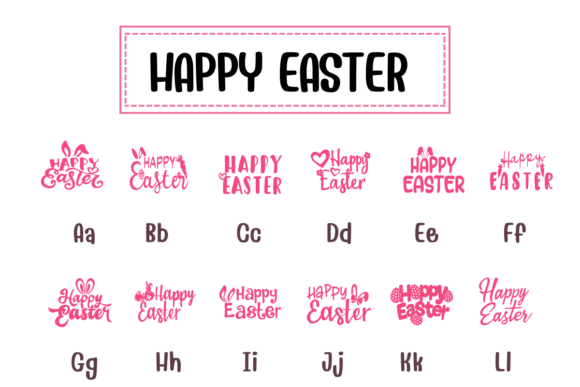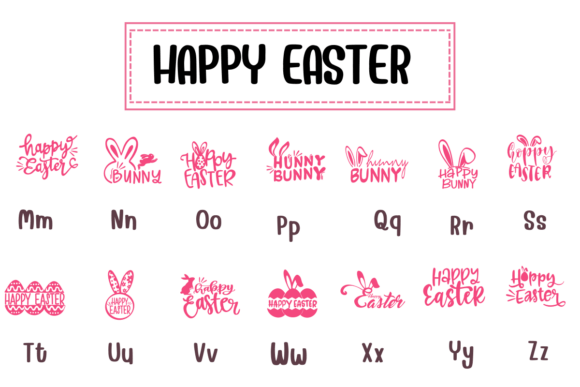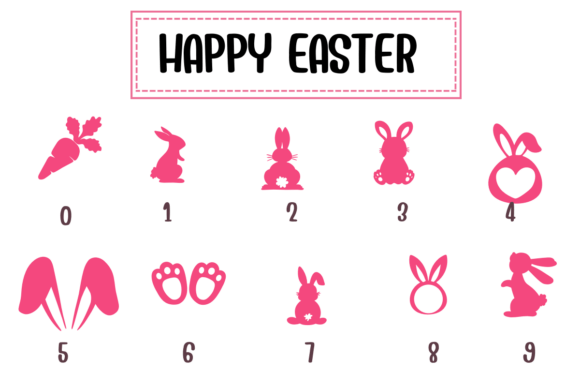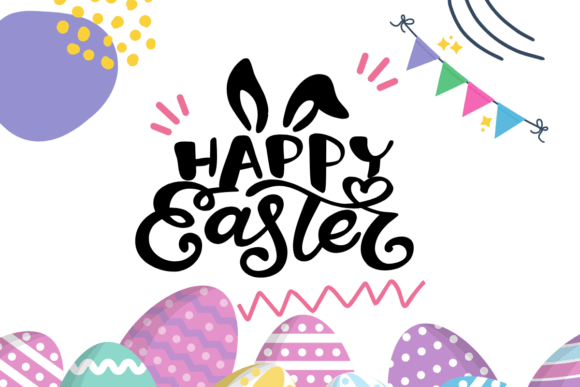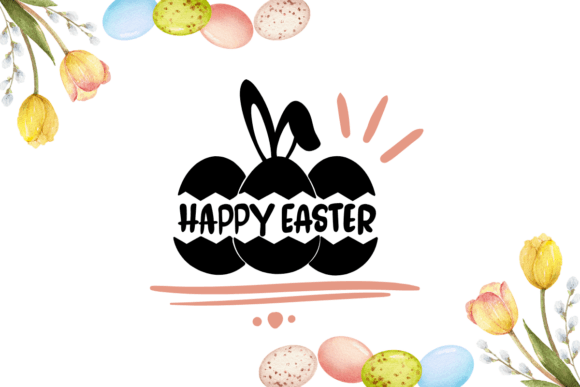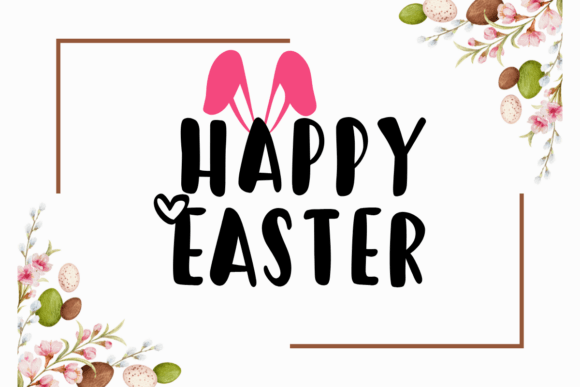
Introduction to Happy Easter Font
As a creative, have you ever found yourself stuck in a design rut, searching for the perfect font to bring your project to life? Perhaps you’re working on a spring-themed wedding invitation, and you need a font that exudes the joy and vibrancy of the season. That’s where the Happy Easter Font comes in – a high-quality, sketched dingbats font that’s sure to add a touch of whimsy to your design.
With its transparent background and playful characters, the Happy Easter Font is a valuable design resource for anyone looking to create something truly unique. Whether you’re working on a DIY craft, a decoration, or a logo, this font is sure to bring a smile to your face and a touch of personality to your project. And the best part? It’s available for free download, making it a must-have for any creative project.
Key Features of Happy Easter Font
- High-quality design resource ideal for creative projects and Easter-themed celebrations.
- Comes with a transparent background, allowing for easy integration with various design elements.
- Unique Easter-themed characters, including eggs, bunnies, and spring-inspired motifs.
- Perfect for use in digital and print media, including social media graphics, posters, and greeting cards.
Honest Review: Happy Easter Font
I recently stumbled upon the Happy Easter Font, a design resource that caught my attention with its vibrant and playful aesthetic. As a designer, I appreciate high-quality fonts that can elevate a creative project, and this one delivers.
- ✨ The transparent background allows for seamless integration into various design elements.
- ✨ The font’s unique design makes it perfect for spring-themed projects, adding a pop of color and whimsy.
- ⚠️ The font may not be suitable for formal or professional projects, as it’s quite playful and might come across as unprofessional.
- ⚠️ The font’s design may not be as versatile as some other fonts, making it less suitable for projects that require a more neutral tone.
Overall, the Happy Easter Font is a great addition to any designer’s toolkit, especially for creative projects that require a fun and festive vibe. While it may have some limitations, its unique design and high-quality aesthetic make it a valuable resource for designers looking to add some personality to their work.
The Happy Easter Font is commonly used in a variety of creative projects such as Easter cards, invitations, and decorations. It is also used in marketing and advertising materials such as brochures and flyers. The font’s high-quality and visually appealing design make it a great resource for any creative project.